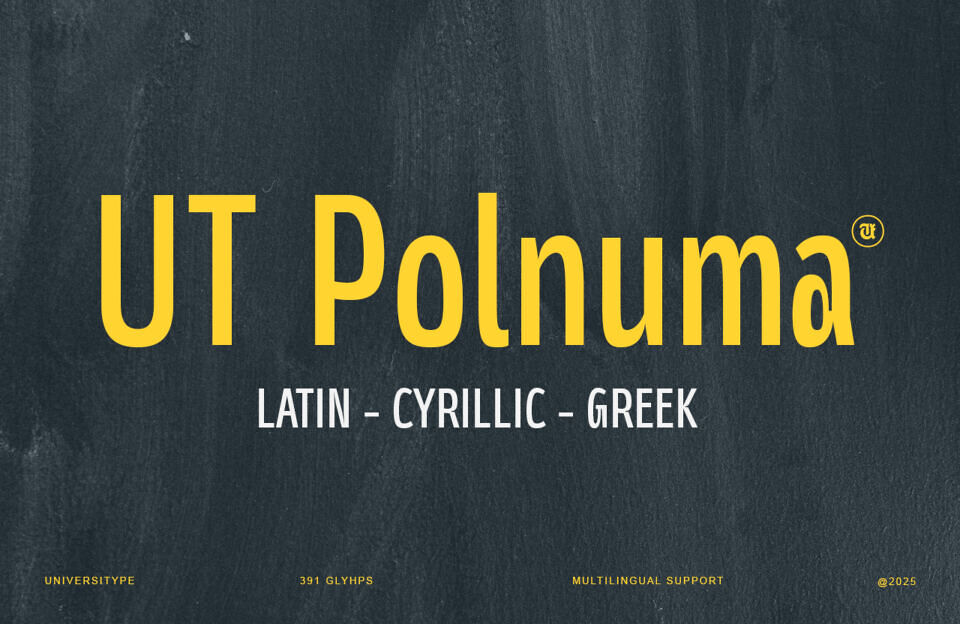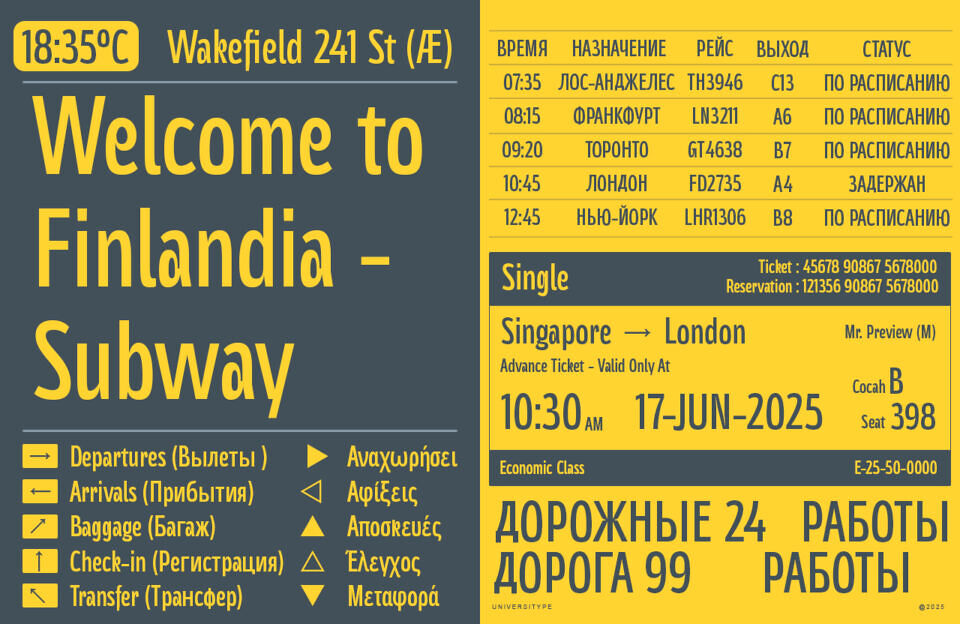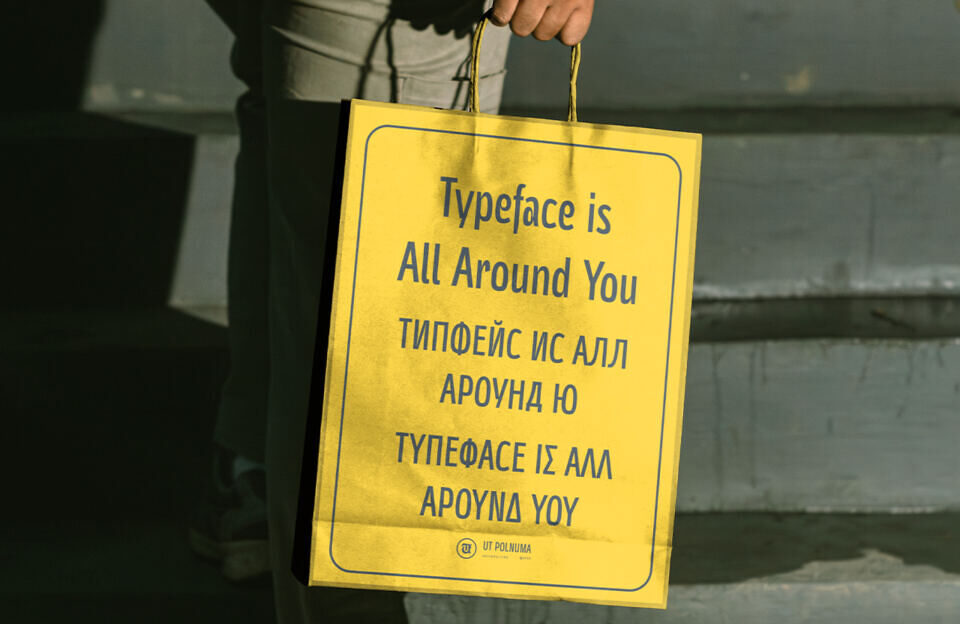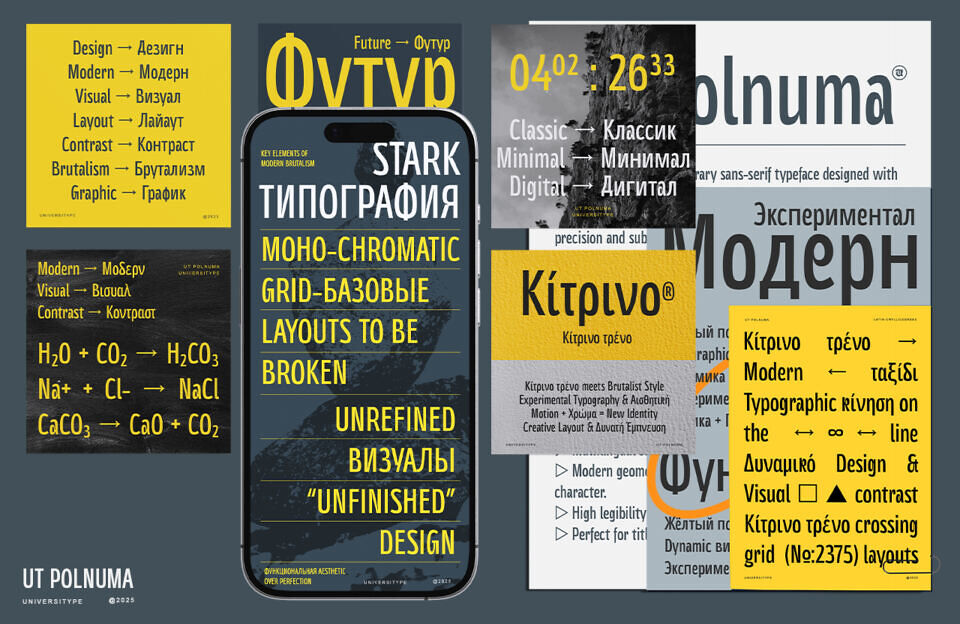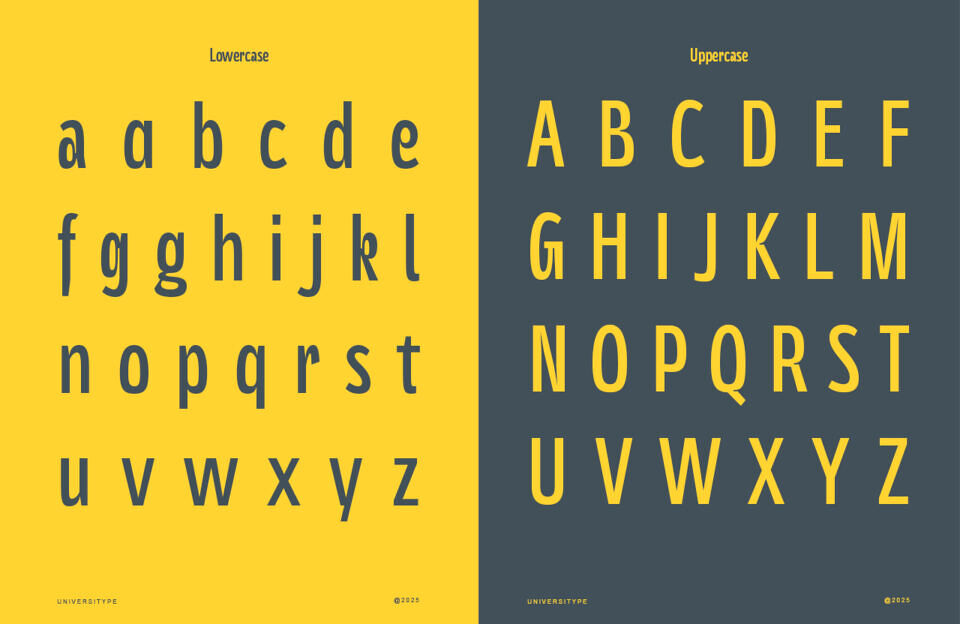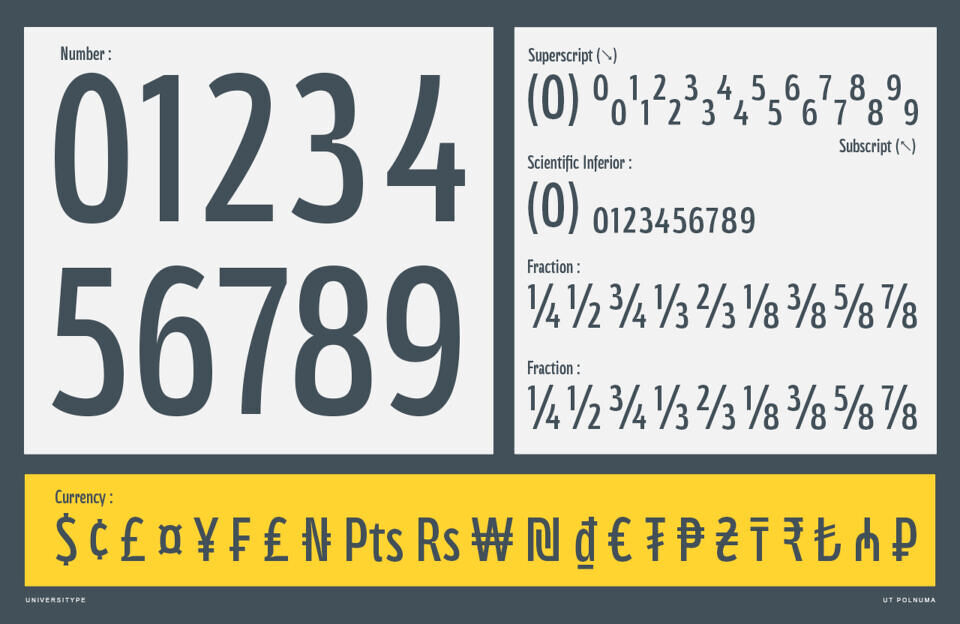
Discover UT Polnuma is a contemporary sans-serif typeface designed for clarity and versatility. With support for Latin, Cyrillic, and Greek alphabets.
UT Polnuma draws inspiration from modern geometric typefaces, aiming to strike a balance between classic simplicity and contemporary design trends. The “unfinished” design approach adds a dynamic and creative touch, making it appealing for modern branding and editorial projects.